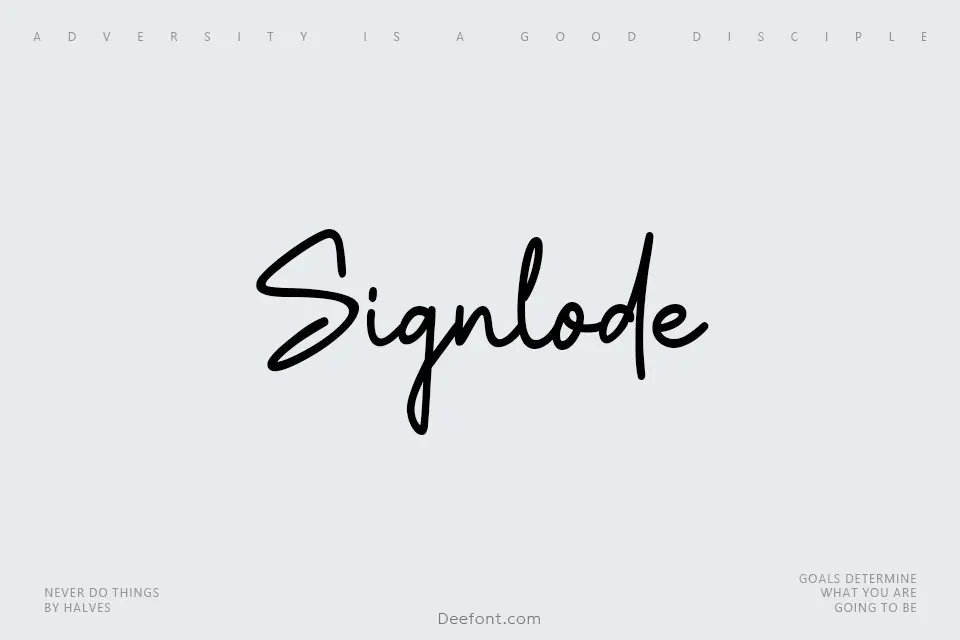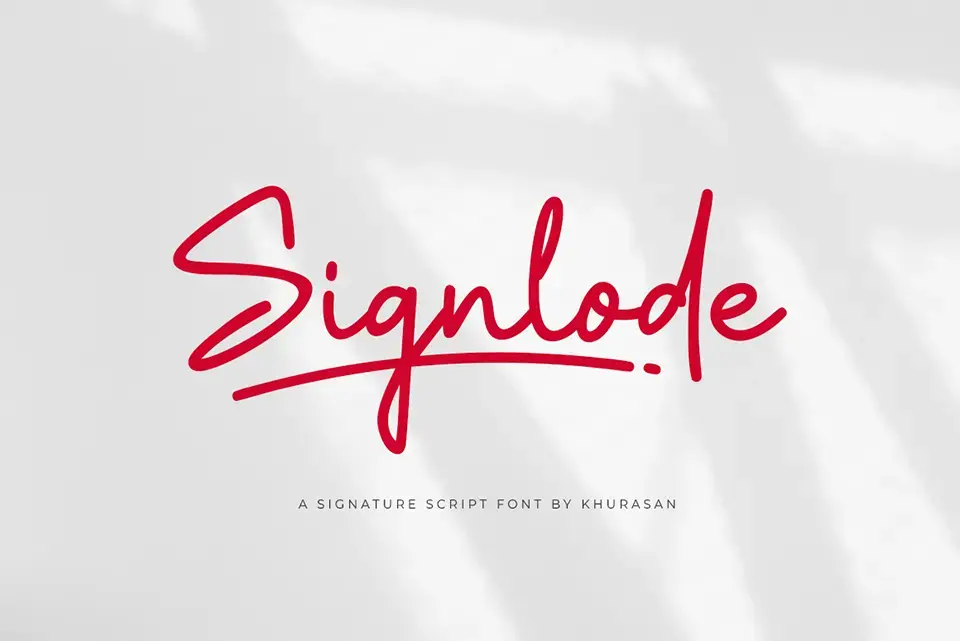
Signlode Font
Signlode Font is a refined script typeface with flowing, elegant letterforms that bring a sophisticated handwritten aesthetic to any design project. Featuring organic brushstroke-inspired strokes and smooth curves, this display font combines contemporary styling with artisanal charm. The typeface excels in creating eye-catching titles, signature elements, poster designs, and decorative headers where personality and elegance are paramount. Its versatile character makes it ideal for branding, invitation designs, packaging typography, and creative marketing materials seeking a balance between modern sophistication and handwritten authenticity.